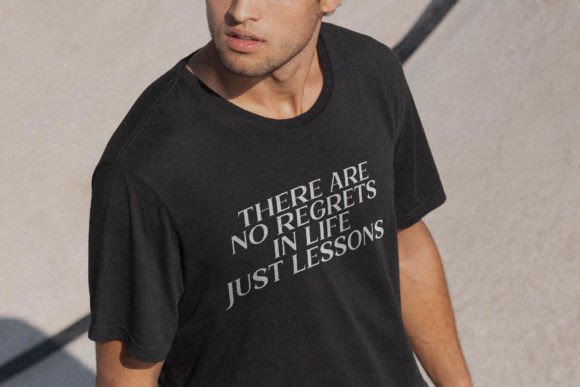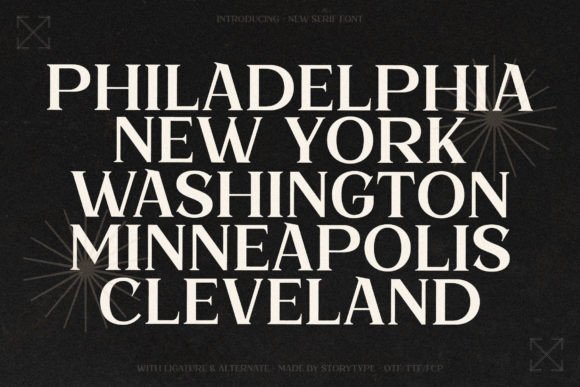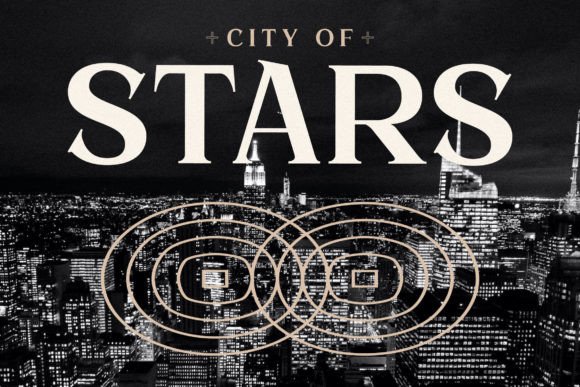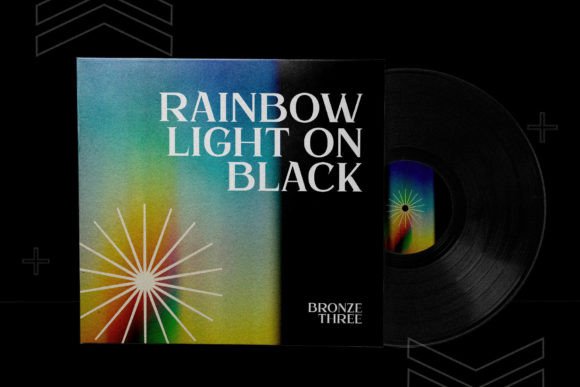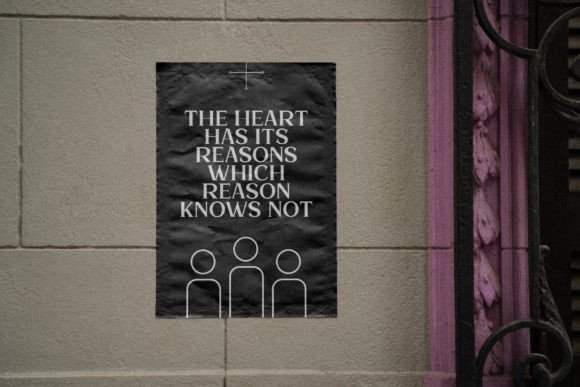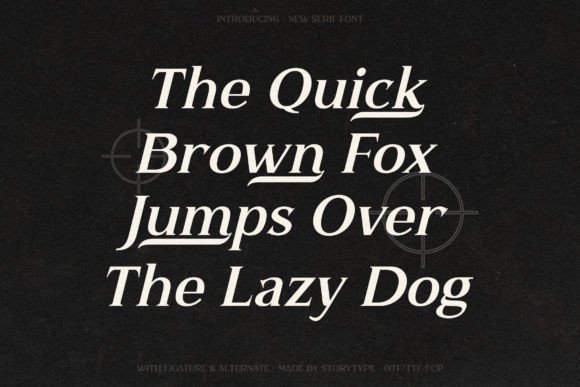
Introduction to Gathero Font
Gathero is a beautiful serif font that has a broad appeal and can be used for any project.
This typeface will enhance your craft with little effort, making your product stand out from the competition .
Key Features of Gathero Font
Why Choose Gathero Font?
Gathero Font offers exceptional quality and versatility, making it a valuable addition to your design toolkit. Whether you’re creating for personal projects or commercial use, Gathero Font delivers professional results.